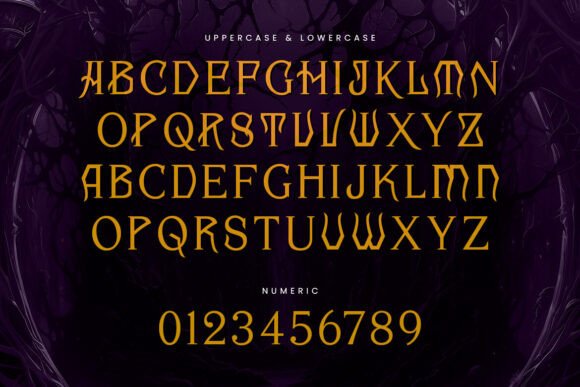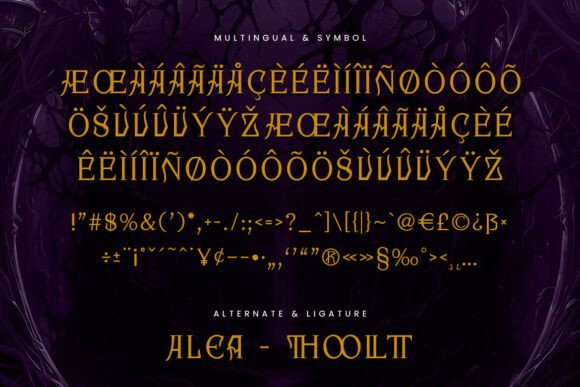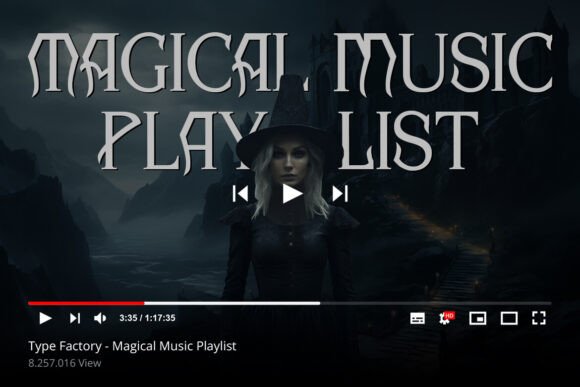
Introduction to Mosacy Magic Font
Have you ever stumbled upon an old, dusty book in a quaint bookstore, its worn leather cover beckoning you to uncover the secrets within? The musty scent of aged pages and the intricate illustrations on the cover transport you to a world of wonder, where fantasy and magic reign supreme. This is the kind of enchantment that Mosacy Magic Font embodies – a mesmerizing medieval typeface that captures the essence of a bygone era, perfect for designers seeking to infuse their projects with a touch of mystique.
As a valuable design resource, Mosacy Magic Font is a high-quality font that offers a transparent background, allowing you to easily layer it over your creative project without any distractions. Whether you’re working on a fantasy book jacket, game design, or branding project, this font’s artfully elaborate letterforms will add a dash of historical exuberance, making it a must-have for any designer looking to elevate their work.
Key Features of Mosacy Magic Font
- High-quality font with a transparent background, ideal for creative projects that require a subtle, non-distracting design element.
- Features a unique, hand-drawn design that adds a touch of elegance and sophistication to any creative project.
- Available in a single font size, making it easy to use and customize in various design applications.
- Designed at a high resolution (300 DPI), ensuring crisp and clear text display in print and digital formats.
Honest Review: Mosacy Magic Font
As a designer, I’m always on the lookout for high-quality design resources to elevate my creative projects. Recently, I stumbled upon the Mosacy Magic Font, and I must say it’s been a delightful discovery. ✨
Here are some of the key features that stood out to me:
- High-quality design with intricate details
- Wide range of applications, from digital to print media
That being said, I do have a few minor complaints:
Overall, I’m thoroughly impressed with the Mosacy Magic Font. Its high-quality design, transparent background, and free download make it an excellent addition to any designer’s toolkit. If you’re looking for a unique and versatile font for your next creative project, I highly recommend giving it a try!
Using Mosacy Magic Font in Popular Design Tools
Use Mosacy Magic Font in your designs for a professional look. Take advantage of the font’s high quality and customize it to fit your creative project.
Add a touch of magic to your presentations and documents with Mosacy Magic Font. The font’s transparent background makes it easy to combine with other design elements.
Getting the Most Out of Mosacy Magic Font
For best results, use Mosacy Magic Font in conjunction with other design resources, such as high-quality images and graphics. Experiment with different font sizes and colors to add depth and visual interest to your designs.
Mosacy Magic Font is perfect for creative projects such as:
- Party and event graphics
- Magazine and blog headers
- Business cards and branding materials